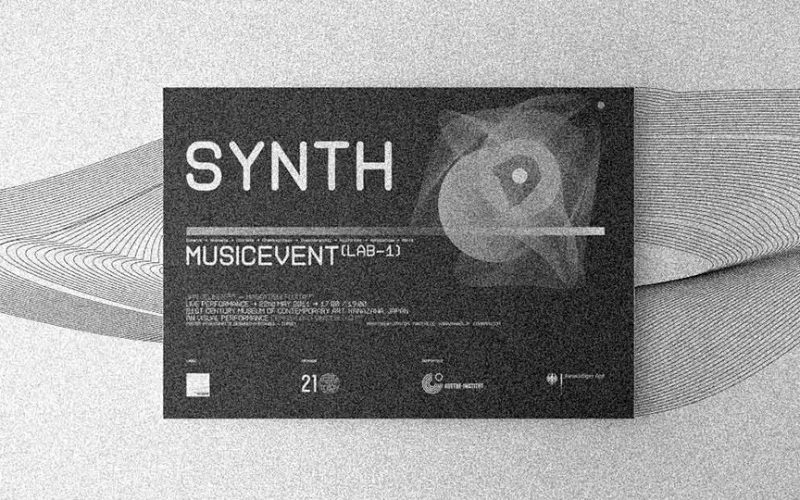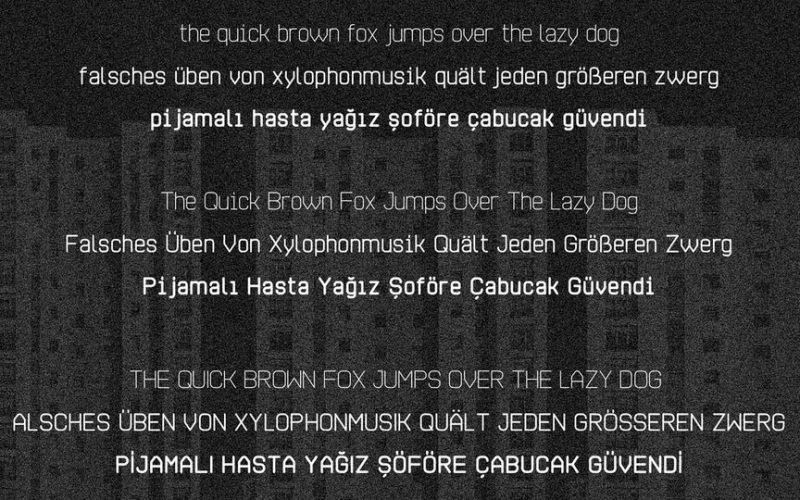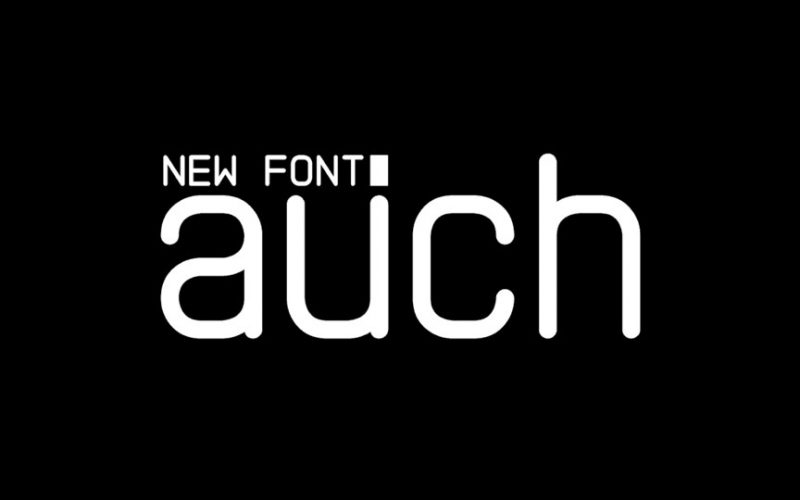
Auch Free Font
Introducing Auch Font – A modern sans serif outline font , is an extremely bold and clean titling sans serif font that demands attention. It can be used for logo design, sale graphics, website titles and works well with large scale product such as sandwich boards, store windows and banners.